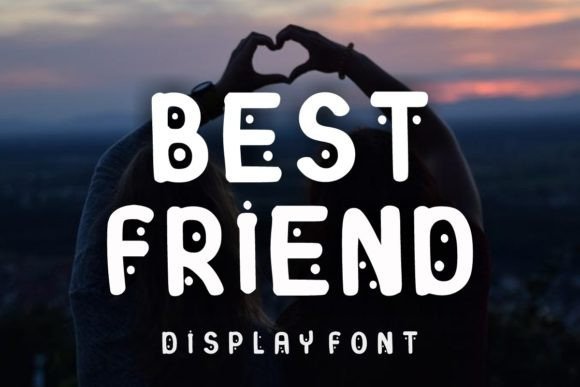
The Perfect Match for Your Creative Projects: Best Friend Font
Have you ever been stuck on a project, pouring over fonts and ideas, until a friend walks in and says, “Why don’t you use this?” And just like that, the perfect solution is found. That’s exactly what happened to me when I discovered the Best Friend Font – a bold and easy-to-read display font that instantly conveys a sense of friendliness and approachability.
As a versatile font, Best Friend is perfect for a wide range of creative applications, from crafting and digital design to presentations and greeting cards. Its value lies in its ability to effortlessly convey a sense of warmth and personality, making it a valuable asset for designers looking to add a touch of friendliness to their work.
Key Features of “Best Friend Font”
- Unique Characteristics: The font features a unique, handwritten style with a friendly and approachable tone, making it perfect for creating a personal and conversational feel in designs.
- Style Variations: The font includes multiple style variations, including Regular, Italic, Bold, and Bold Italic, allowing designers to create a range of visual effects and emphasis in their designs.
Best Friend Font Review
I was excited to dive into the Best Friend Font, and overall, it’s a solid choice for casual and friendly designs. ✨ The rounded edges and subtle curves create a welcoming feel, perfect for family brands, kid’s products, or anything that requires a laid-back vibe.
The font’s legibility is also a major plus, making it easy to read in various sizes and contexts. ✨ It’s a great option for body text or headlines, especially when combined with other clean sans-serif fonts.
However, there are a few areas where the Best Friend Font falls short:
- ⚠️ Limited character set: The font’s character set is somewhat limited, which may not be ideal for more complex designs or foreign languages.
- ⚠️ Not ideal for formal designs: The font’s playful nature may not be suitable for more formal or professional projects, where a more conservative font would be a better choice.
Overall, the Best Friend Font is a reliable choice for designs that require a friendly and approachable feel. While it may not be the best option for every project, it’s a great addition to any designer’s toolkit.
To get the most out of the Best Friend Font, use it in creative and playful ways. Pair it with bright colors and bold graphics to create eye-catching designs.
Use it in quotes, titles, and headings to add a personal touch to your designs.
The Best Friend Font is perfect for:
Celebrating friendships and special occasions.
Creating playful and whimsical designs.
Adding a personal touch to your designs.
Alternatives to Best Friend Font for Designers
Great Vibes is a modern, elegant script font that is ideal for creating a friendly and approachable tone. It is perfect for use in invitations, greeting cards, and social media graphics. Great Vibes has a similar feel to Best Friend Font, but with a more refined and sophisticated look.
Alex Brush is a beautiful, handwritten font that is great for adding a personal touch to your designs. It is suitable for use in branding, packaging, and advertising materials. Alex Brush has a more organic feel than Best Friend Font, with a softer and more whimsical look.
Pacifico is a elegant, cursive font that is perfect for creating a relaxed and beachy vibe. It is ideal for use in summer-themed designs, such as beach wedding invitations, surfboard designs, and tropical branding. Pacifico has a similar laid-back feel to Best Friend Font, but with a more refined and sophisticated look.